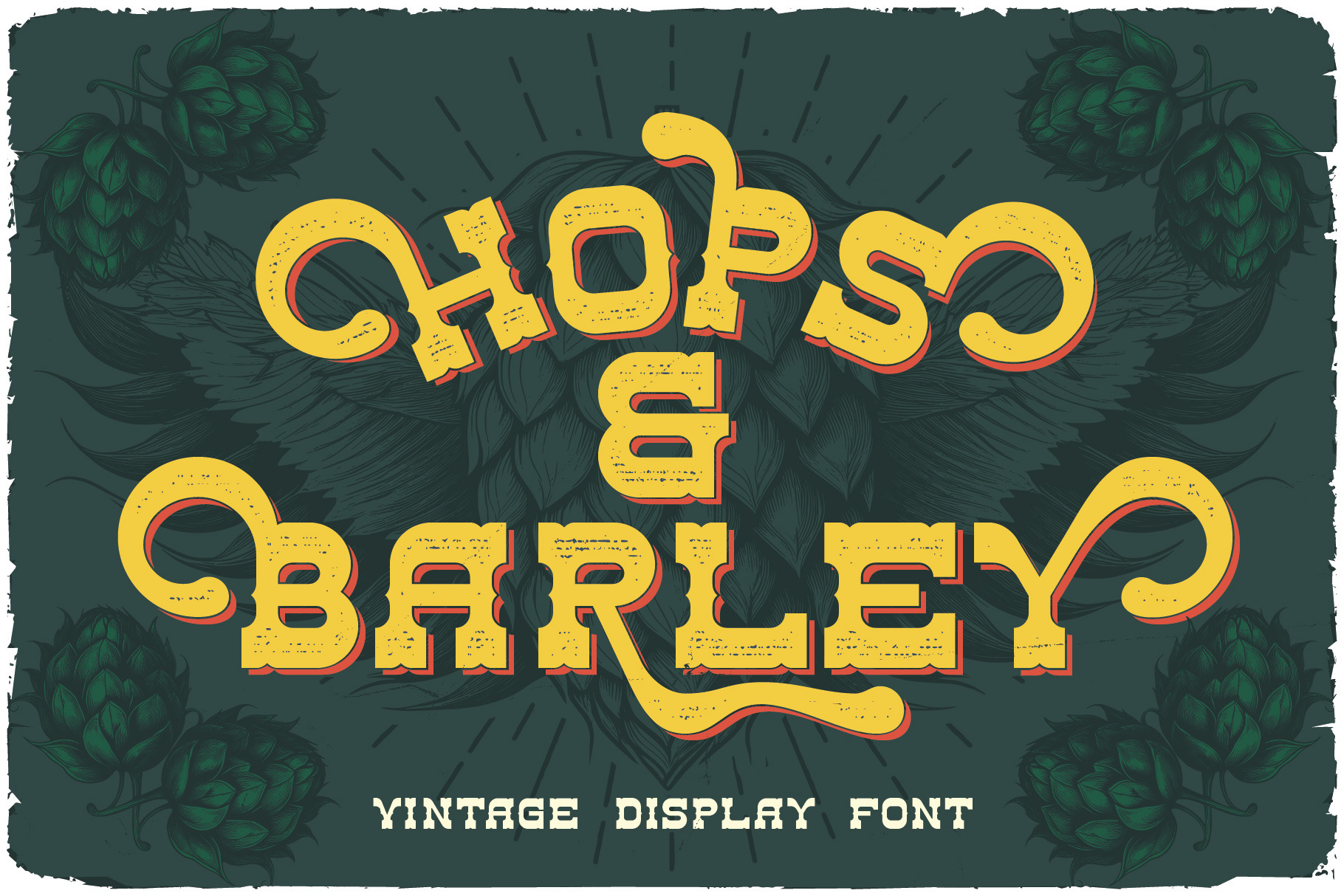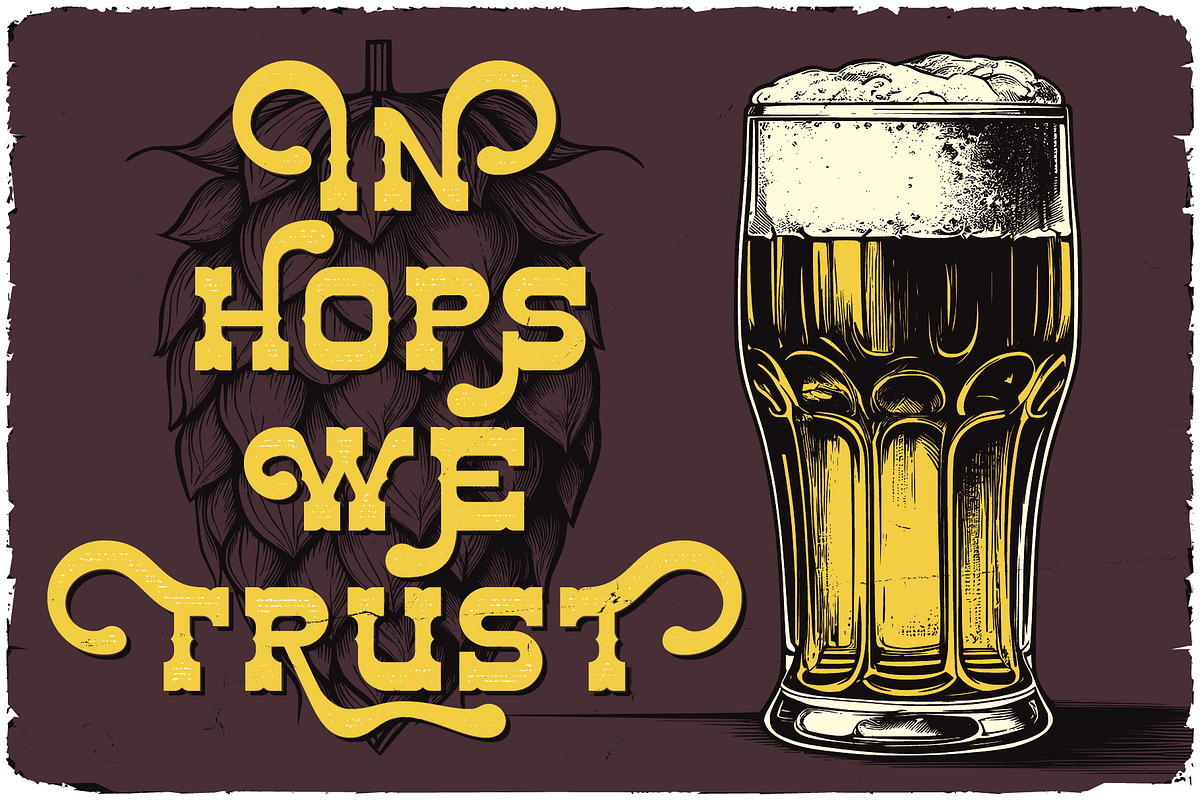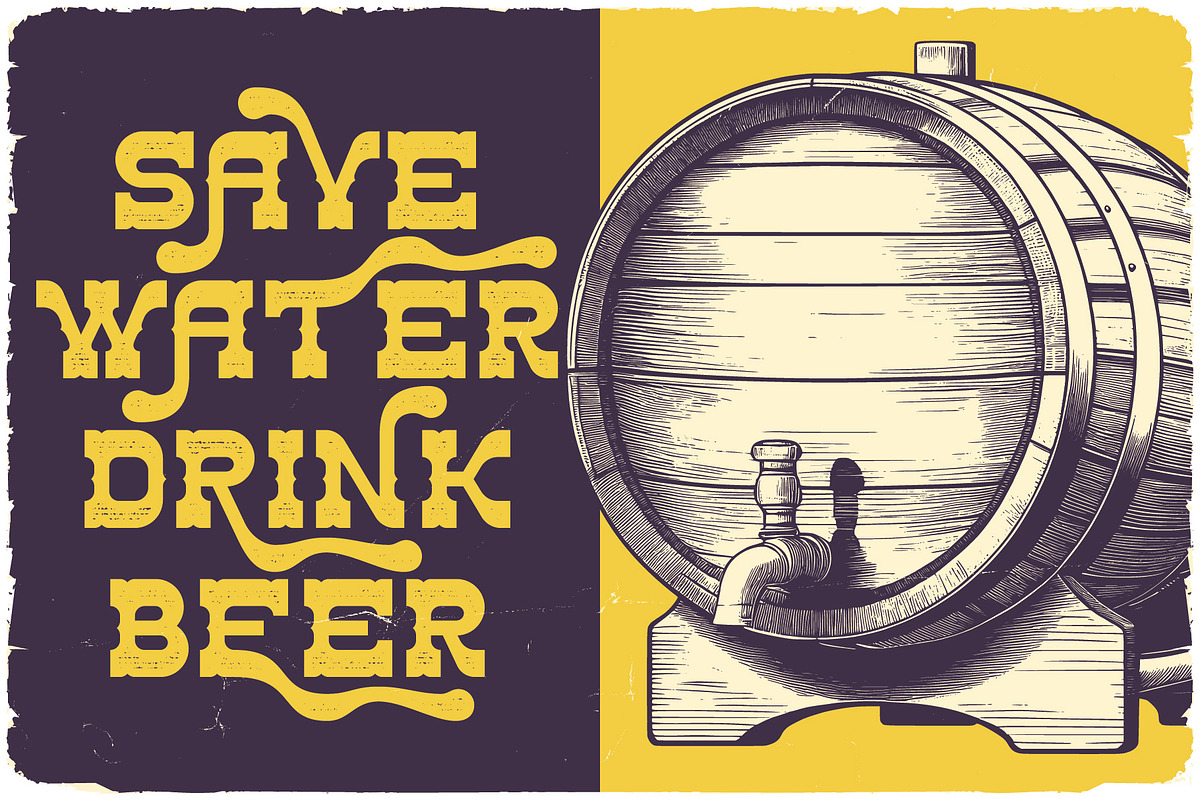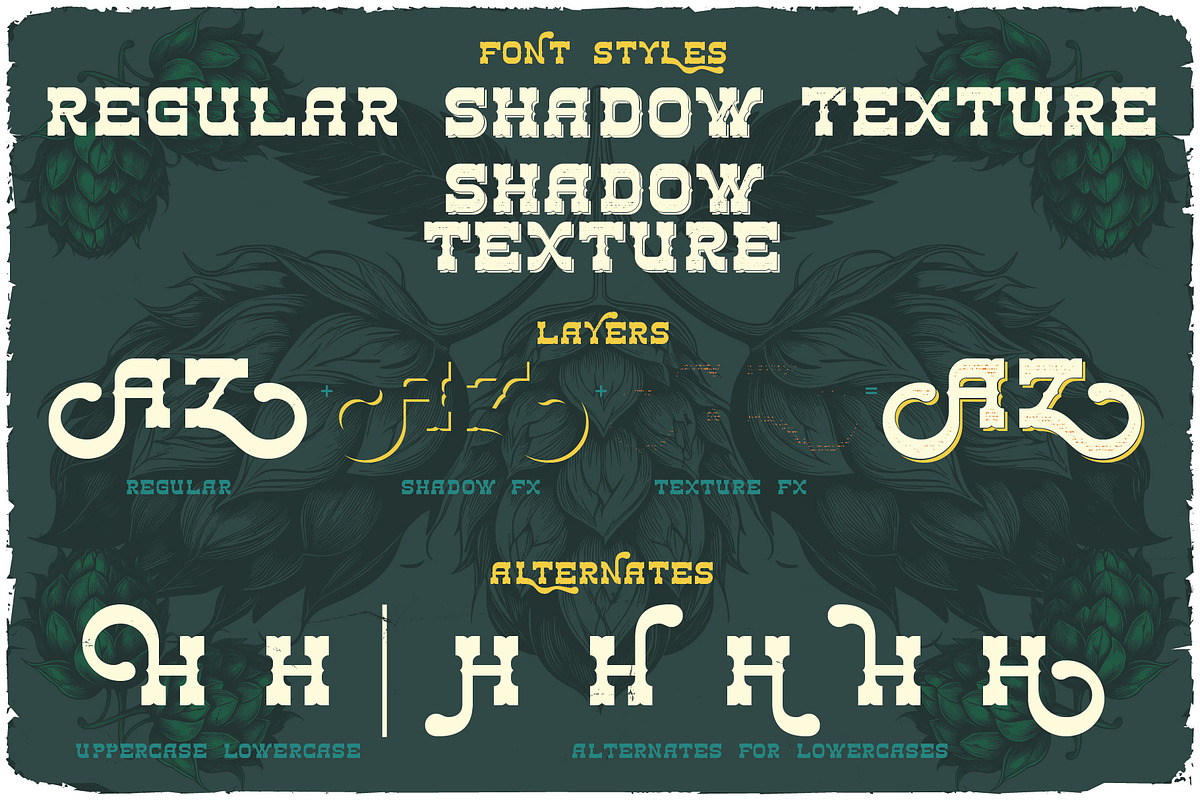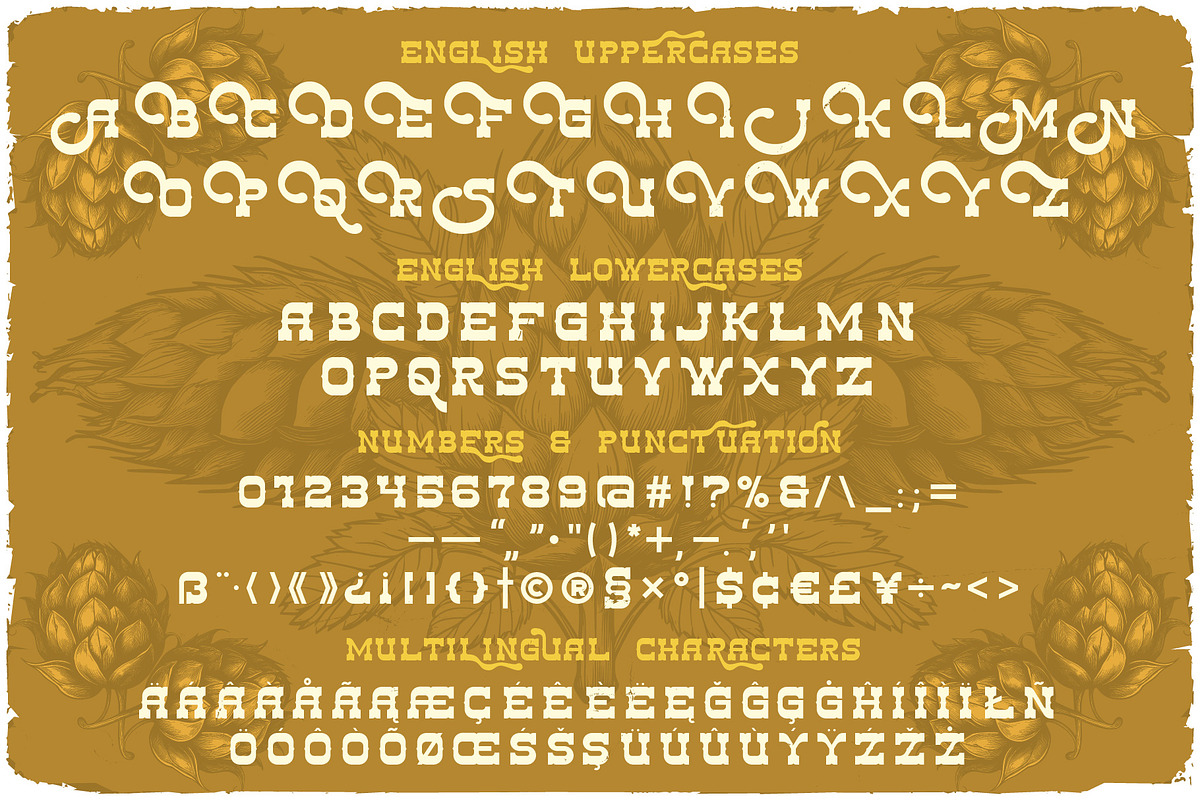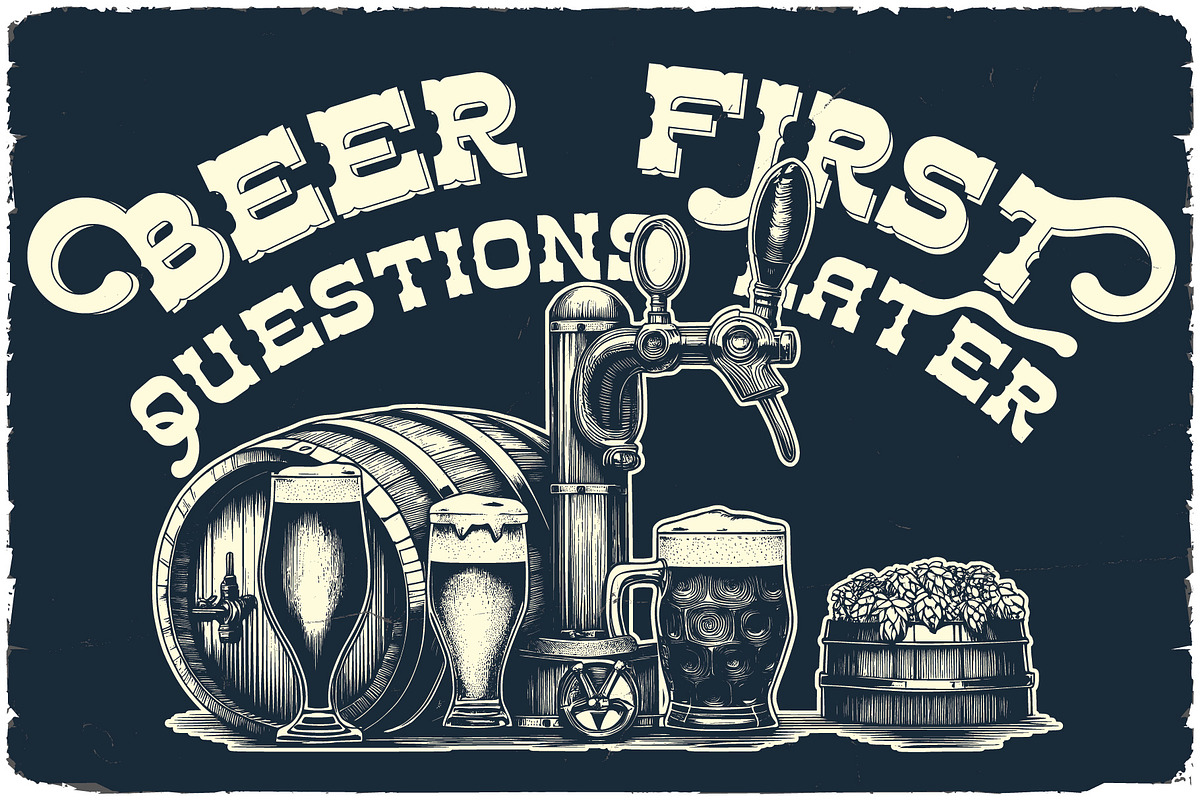
Hops And Barley Vintage Font
Unique, classic, bold, elegant, retro, vintage, western & slab serif font. Comes with multilingual support & lot of alternates + 6 font versions - great for your new logo, monogram or branding project.
- 6 font versions
- Multilingual support & lot of alternates
- Great for your new logo, monogram or branding project